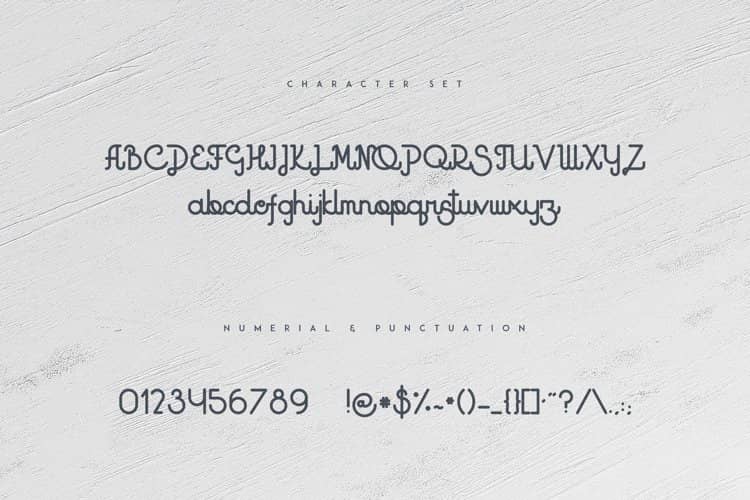
Godlike Monoline Font
It’s a round-cornered monoline display typeface. It’s a highly adaptable typeface that performs well in both large and tiny sizes. Godlike is an attention-getting typeface with a thick and even weight and alternate style that may be utilized to maximize all of your display-oriented designs. Uppercase, lowercase, numeral, punctuation & Symbol, Alternatives Multilingual, and ten readymade logo templates are among the Font’s characteristics. Vp creative shop designed and produced the Font. On March 17, 2020, the Font was made public. The typeface is available in two different formats: OTF and TTF. You must first extract the fonts from the ZIP or RAR file before installing them. Windows 10/8/7 (64-bit) By right-clicking on the Font, you may install it. OS X (Macintosh Operating System) is a computer operating system developed by Apple. To install the Font, double-click it. From the drop-down option, choose “Install font.” The Font is categorized under display font. But sometimes, it is also considered as monoline according to its usage.
Godlike is ideal for logo design, home decor, product packaging, or just as a classy text overlay on any background image. The Font has an aesthetic vibe to it as well. Every work appears to be exquisite due to the aesthetic vibes. The Font is commonly used in magazines with any type of interior design. With colours like black, coffee, and green, the Font looks fantastic.
| Name | Godlike Monoline Font |
| Style | Display |
| Designer | Alejandro Lo Celso |